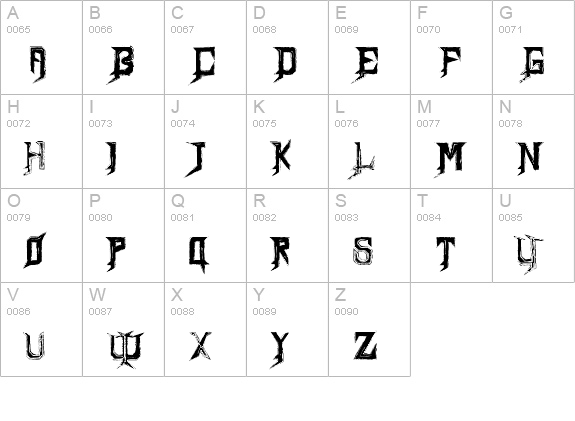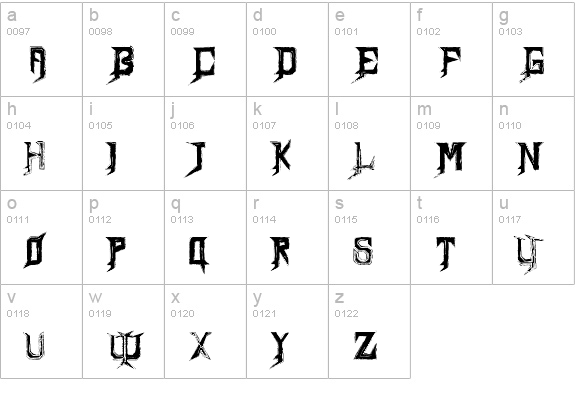
Decas Bold Font Details
Decas Bold is a strong, high-contrast variant in the Decas typeface family \xE2\x80\x94 well suited to headlines, attention-grabbing titles, and strong calls-to-action.
Decas Bold font is a stunning display typeface that exudes power and elegance. Its bold and assertive strokes command attention and make a lasting impression. The letters are meticulously crafted with sharp edges and strong curves, resulting in a modern and dynamic design. This font is perfect for projects that require impact and a touch of sophistication. Whether you are working on a logo, a headline, or a poster, Decas Bold will effortlessly elevate your design to the next level. Its versatility allows it to be used in a range of creative applications, from branding to editorial design. One of the best things about Decas Bold font is that it is available for free download at FontsMarket.com. This means that you can easily access and use this incredible typeface without breaking the bank. FontsMarket.com is a trusted source for high-quality fonts, and they offer a wide selection of both free and premium options. So, if you are looking for a bold and impactful font that will make your designs stand out, look no further than Decas Bold. With its striking appearance and the convenience of being freely available to download at FontsMarket.com, this font is a must-have for any designer or creative professional. Embrace the power of Decas Bold and take your projects to new heights.